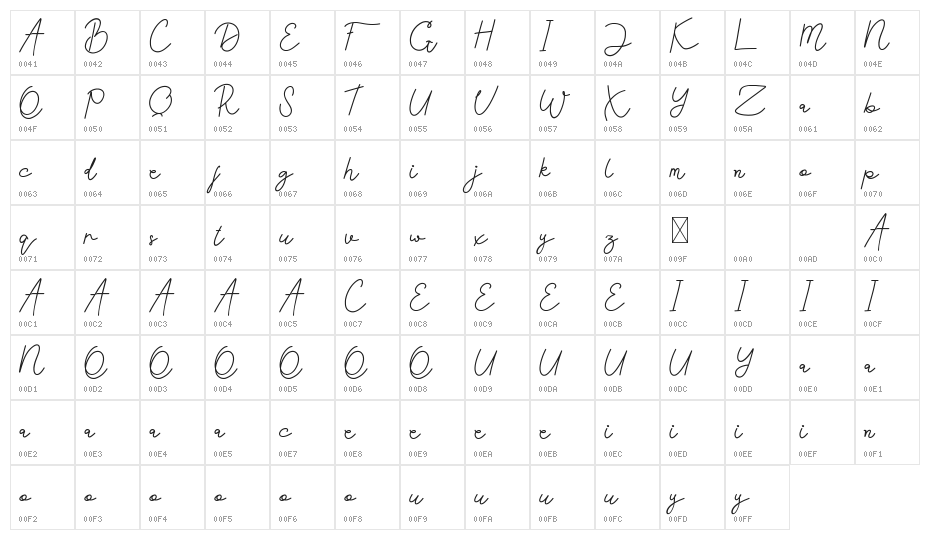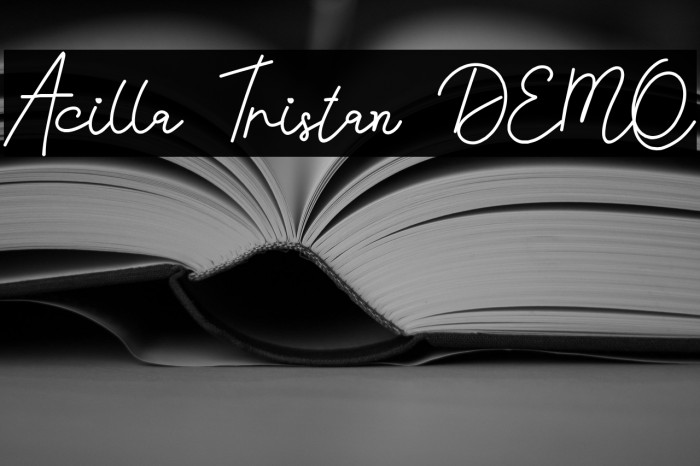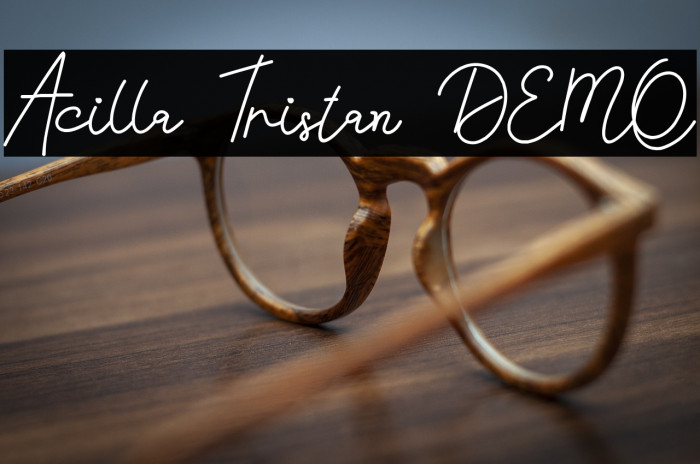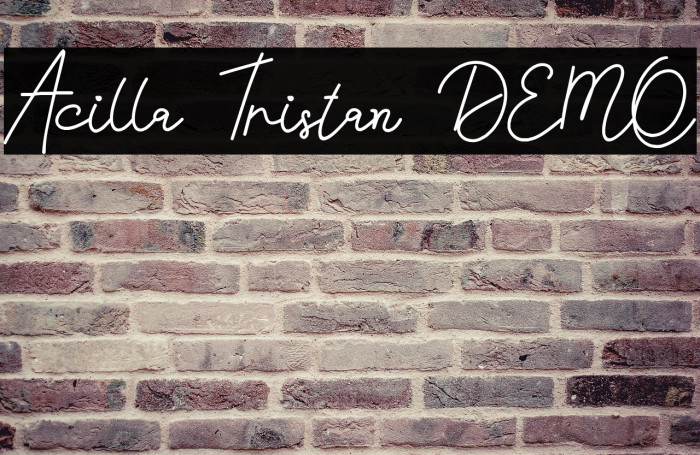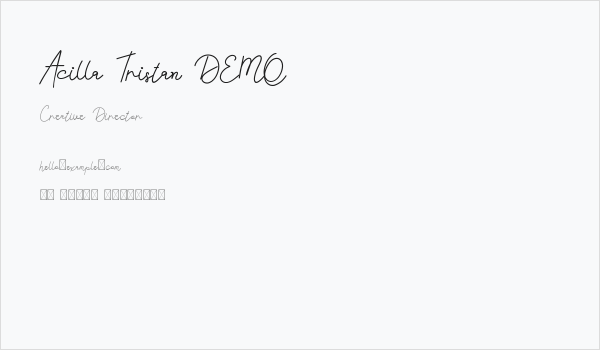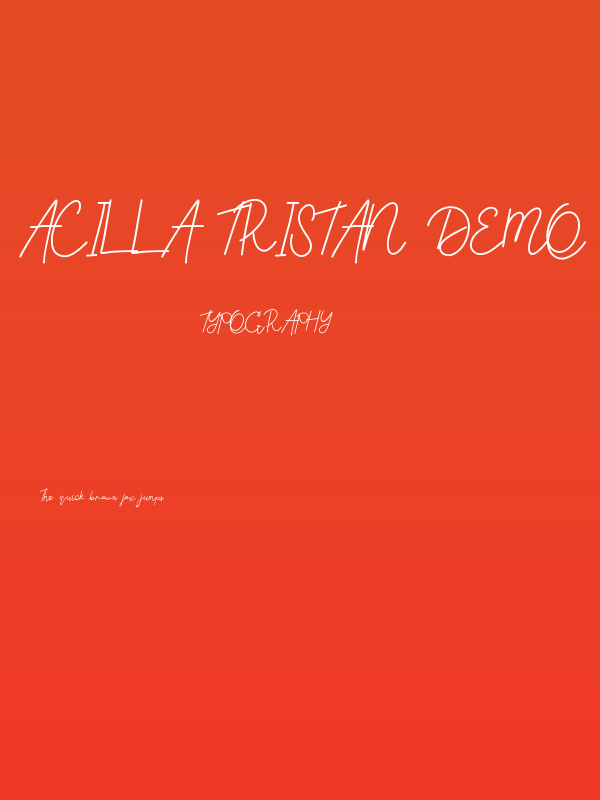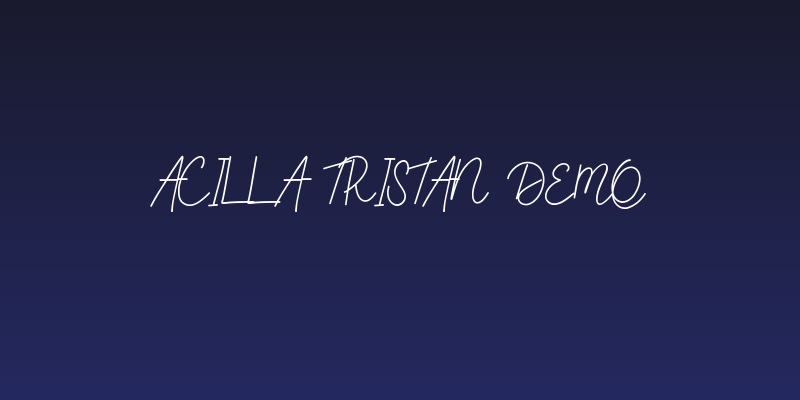
Acilla Tristan DEMO Font
Acilla Tristan DEMO Description
This font features a flowing, cursive style with a handwritten aesthetic. The letters are interconnected, giving it a seamless and elegant appearance. The strokes are smooth and consistent, with a slight slant that adds a dynamic feel. The uppercase letters are bold and prominent, while the lowercase letters maintain a delicate and refined look. The font exudes a sense of creativity and personal touch, making it ideal for projects that require a personal or artistic flair. It is versatile enough to be used in various design contexts, from invitations to branding materials.
| Proposed Projects | Ideal for wedding invitations, personal branding, artistic projects, and greeting cards. |